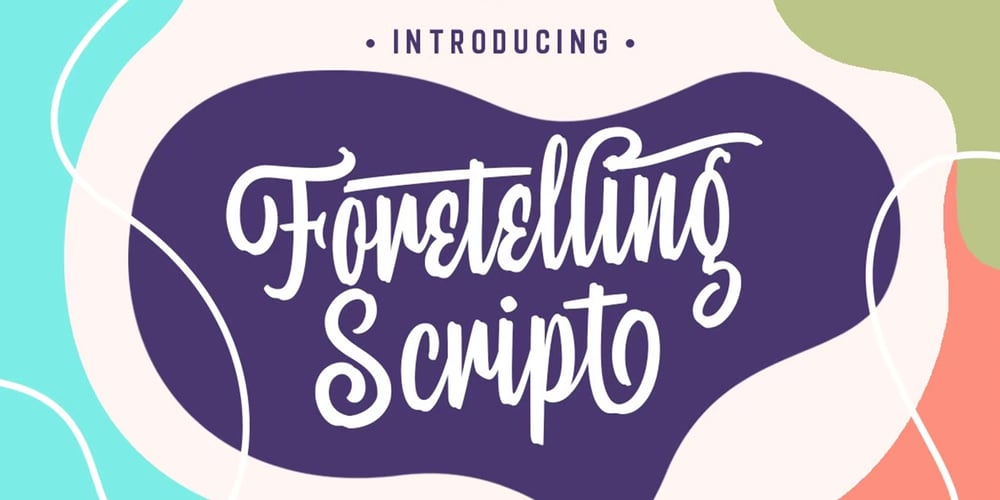
Foretelling Script
Foretelling Script font
Foretelling Script Font Family was designed by Hendry Juanda and published by Letterhend. Foretelling Script contains 3 styles and family package options. Introducing, Foretelling Script. A condensed script typeface. A fun, playful and casual script made by natural hand writing. This type of font perfectly made to be applied especially in logo, and the other various formal forms such as invitations, labels, logos, magazines, books, greeting / wedding cards, packaging, fashion, make up, stationery, novels, labels or any type of advertising purpose.Available in 3 styles : Reguler, Rough and StampsFeatures : uppercase & lowercase numbers and punctuation multilingual swashes and ligatures alternates PUA encoded We highly recommend using a program that supports OpenType features and Glyphs panels like many of Adobe apps and Corel Draw, so you can see and access all Glyph variations. How to access opentype feature : letterhend.com/tutorials/using-opentype-feature-in-any-software/Email us to letterhend@gmail.com if you need something! Happy Designing!